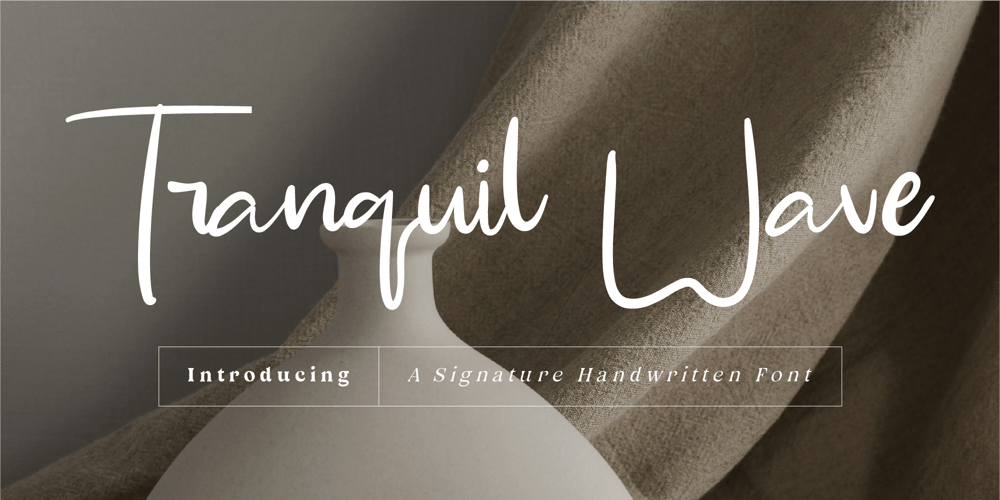
CF Tranquil Wave Font Family was designed by Gilang Mei Nugraha, Frederik Aristaputra and published by Creatifont Studio. CF Tranquil Wave contains 2 styles and family package options. Tranquil Wave β A Serene & Sophisticated Signature Handwritten FontExperience the beauty of effortless elegance with Tranquil Wave, a signature handwritten font designed to bring a sense of calm, fluidity, and sophistication to your projects. With its delicate yet confident strokes, this typeface captures the art of handcrafted refinement, making it a perfect choice for luxury branding, personal signatures, wedding stationery, and upscale editorial designs.Inspired by natural flow and modern minimalism, Tranquil Wave delivers a graceful balance between style and readability. The smooth, flowing curves and airy letterforms create an authentic, personal touch, ideal for brands looking to make an impression with understated elegance.Why Choose Tranquil Wave?π Effortless Elegance: A signature-style script with a graceful, free-flowing touch.β Perfect for Luxury & Lifestyle Branding: Ideal for high-end fashion, beauty, and editorial projects.π Refined Yet Relaxed: A unique blend of sophistication and natural movement.π Authentic Handwritten Feel: Looks as if written with a fine ink pen for added exclusivity.Let your words flow with the serene sophistication of Tranquil Wave. Download now and bring a sense of calm, beauty, and luxury to your designs! β¨πA SUMMARY OF WHAT’S INCLUDED:- Standard Character A-Z, a-z, 0-9, Punctuation & symbols- Regular and Italic- Works on PC & Mac- Simple installation- Accessible in Adobe Creative Suite (Ai, Ps, Id, etc.) even work on Microsoft Word.- PUA Encoded Characters β Fully accessible without additional design software.πIf you come across any issues or notice anything we might have overlooked while using this product, please feel free to reach out to us. We greatly value your feedback as it helps us enhance and refine our products. Thank you!